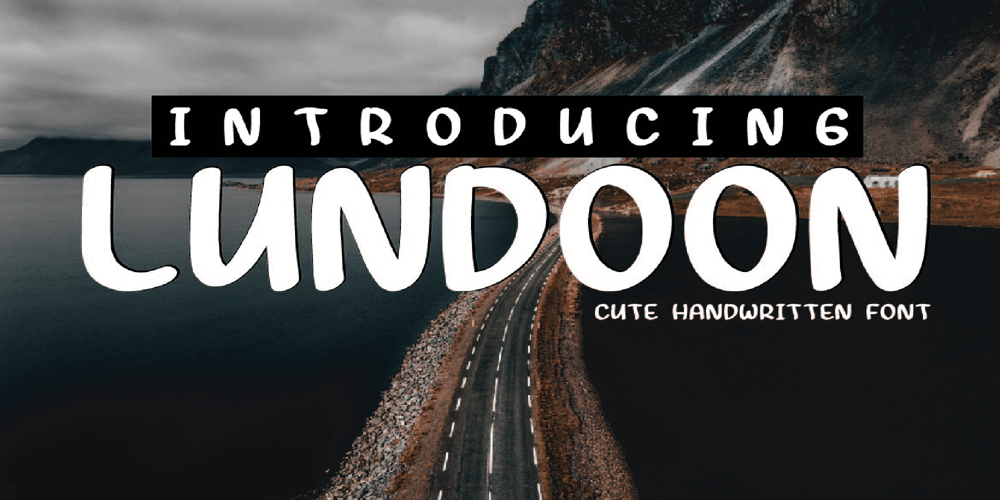
Lundoon Font Family was designed by akhmad rizki cahyadi and published by Mazkicibe. Lundoon contains 1 styles and family package options. DescriptionHello gaes! How are you guys ? I’m sure it’s very good.Introducing, this is our newest product, we call this produc Lundoon Font.. Lundoon Font is Handwritten and modern font combined with a sweet touch and beautifully curved each letter. using a touch of soft curves so that it is pleasing to the eyeLundoon Font Spirit is great for: Wedding invitations, fashion magazines, logos, signatures, and suitable for watermark photography. Features: -Uppercase, -Lowercase, -Numeral, -Punctuation,